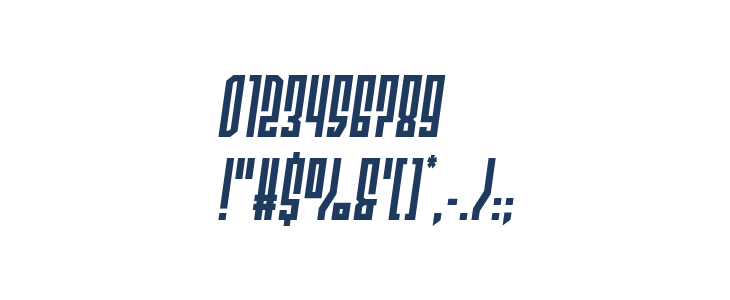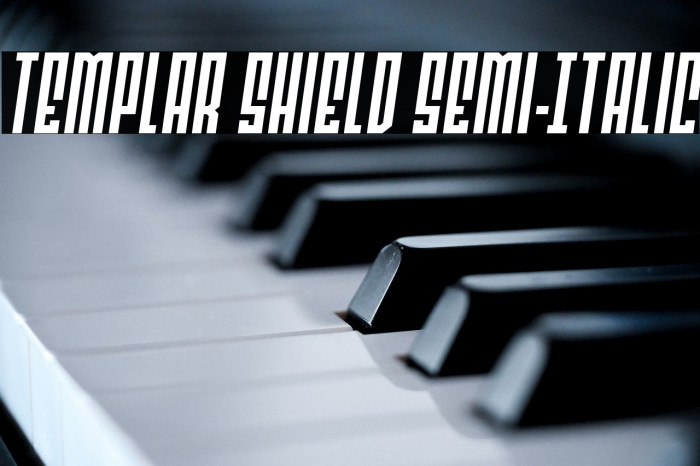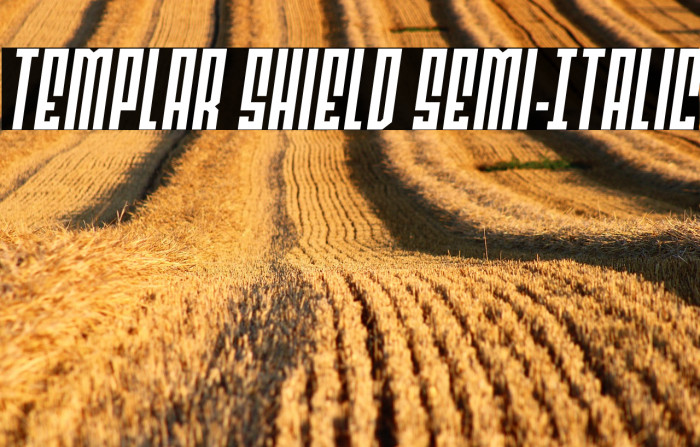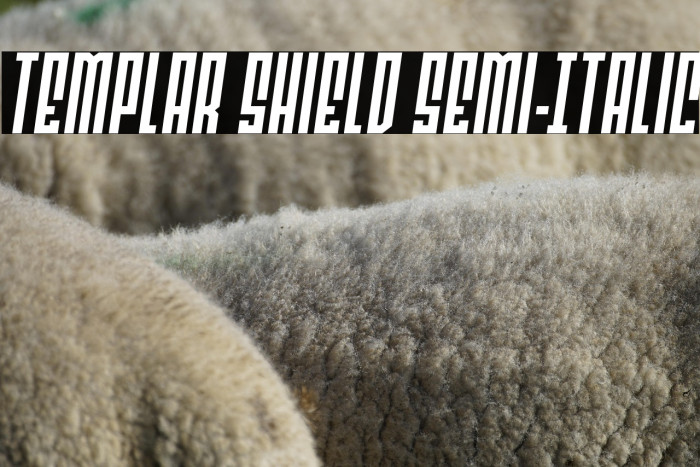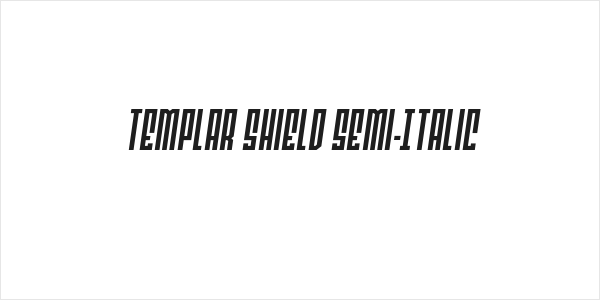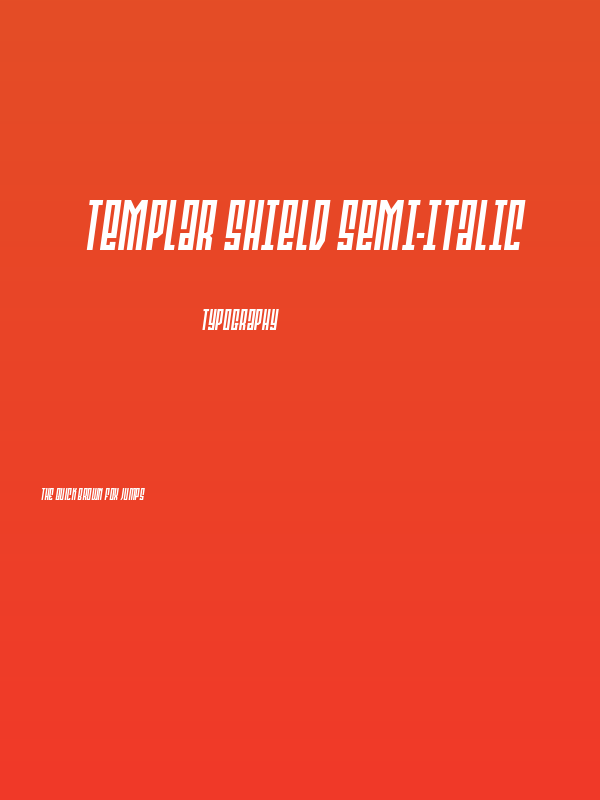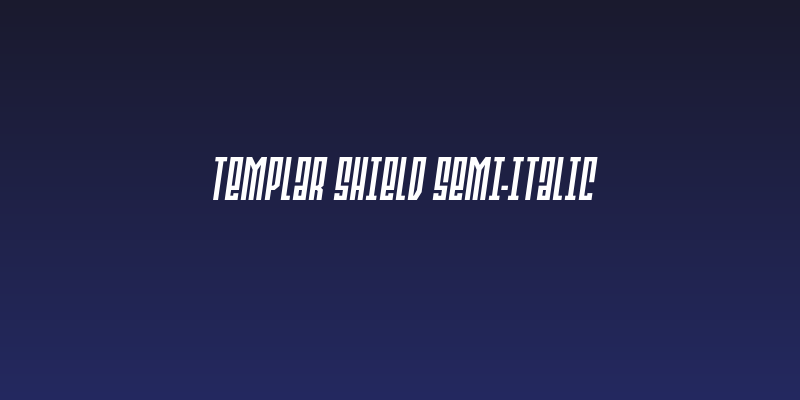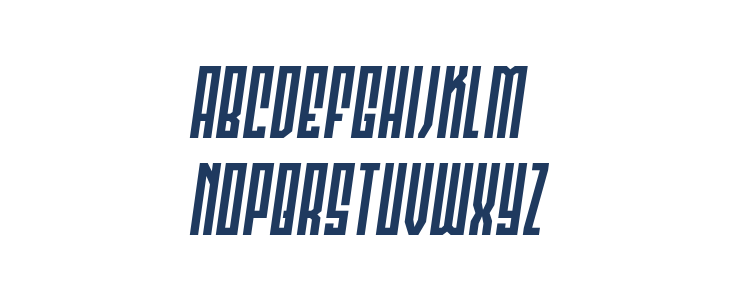
Templar Shield Semi-Italic Font
Templar Shield Semi-Italic Description
This font features a bold, angular design with a semi-italic slant, giving it a dynamic and aggressive appearance. The characters are tightly spaced, enhancing the compact and powerful look. The uppercase and lowercase letters share a consistent style, with sharp edges and a strong geometric influence. The numbers and special characters maintain the same boldness and angularity, ensuring uniformity across all glyphs. The overall style is reminiscent of medieval or gothic themes, making it suitable for projects that require a dramatic and impactful typeface.
| Proposed Projects | Ideal for use in video game titles, movie posters, branding for edgy or alternative products, and any design requiring a strong, dramatic typeface. |